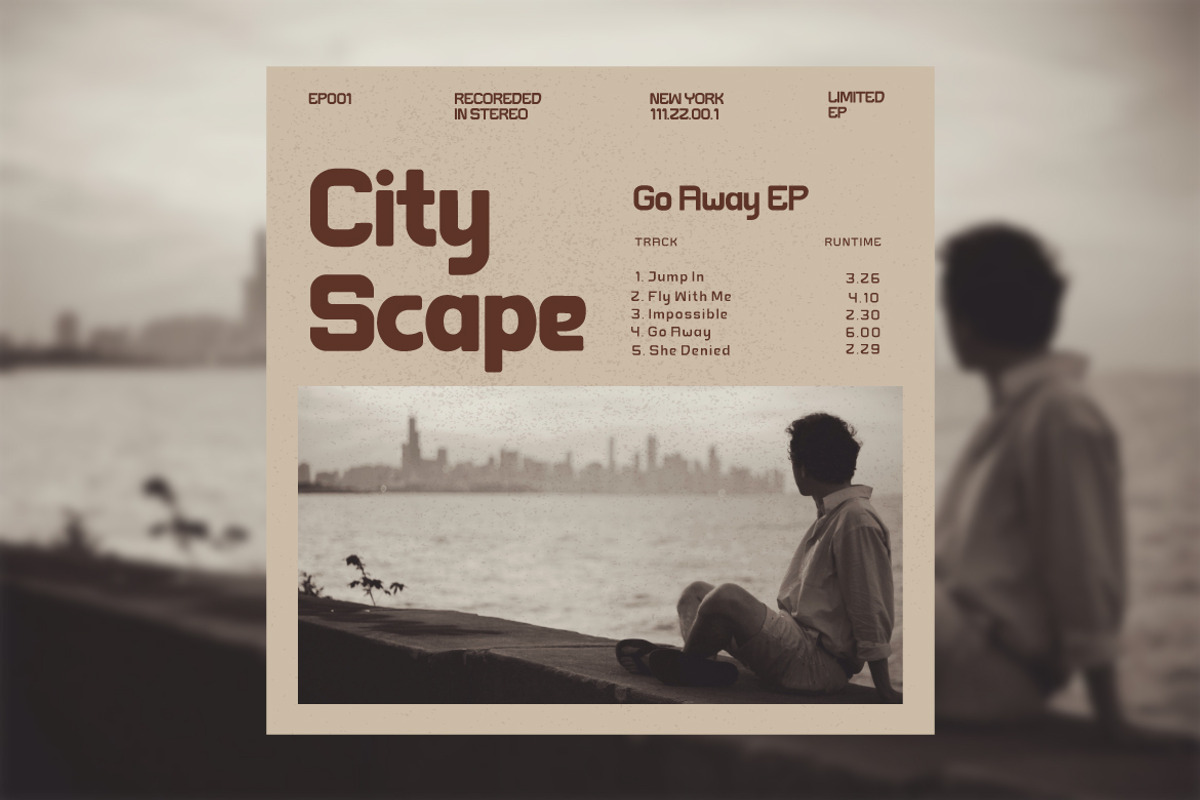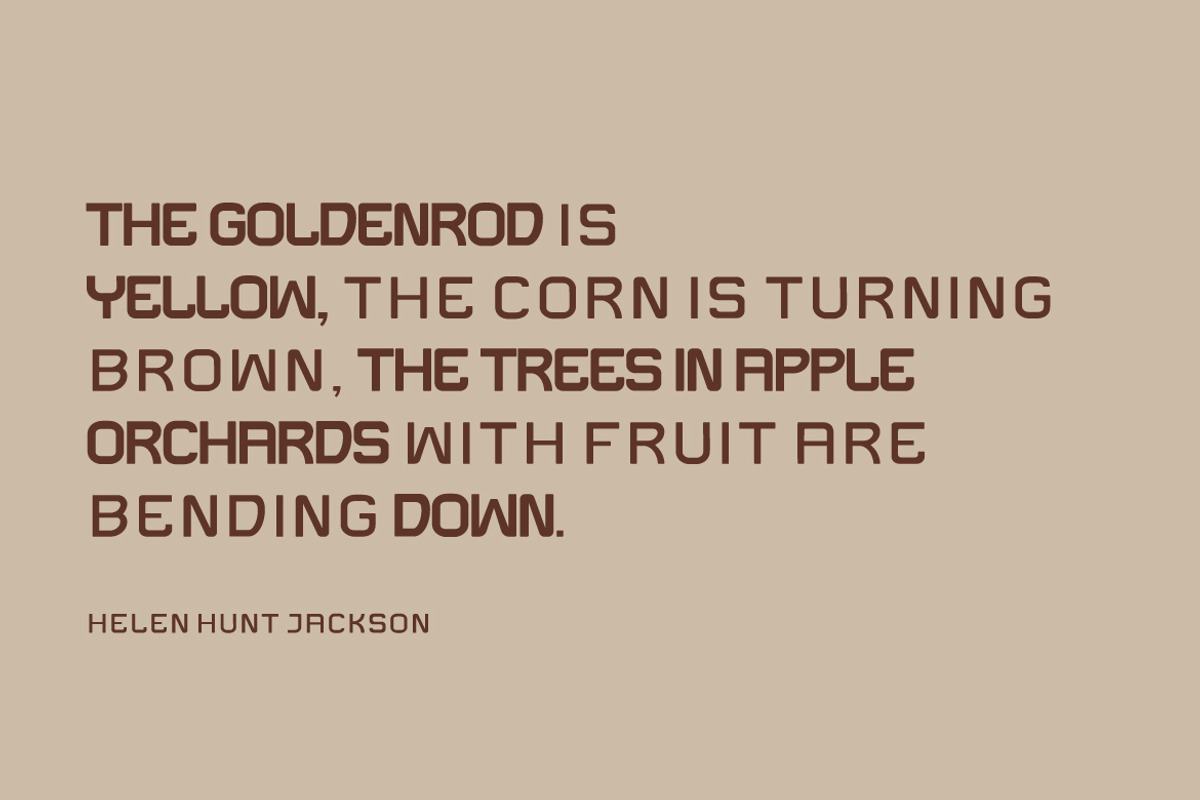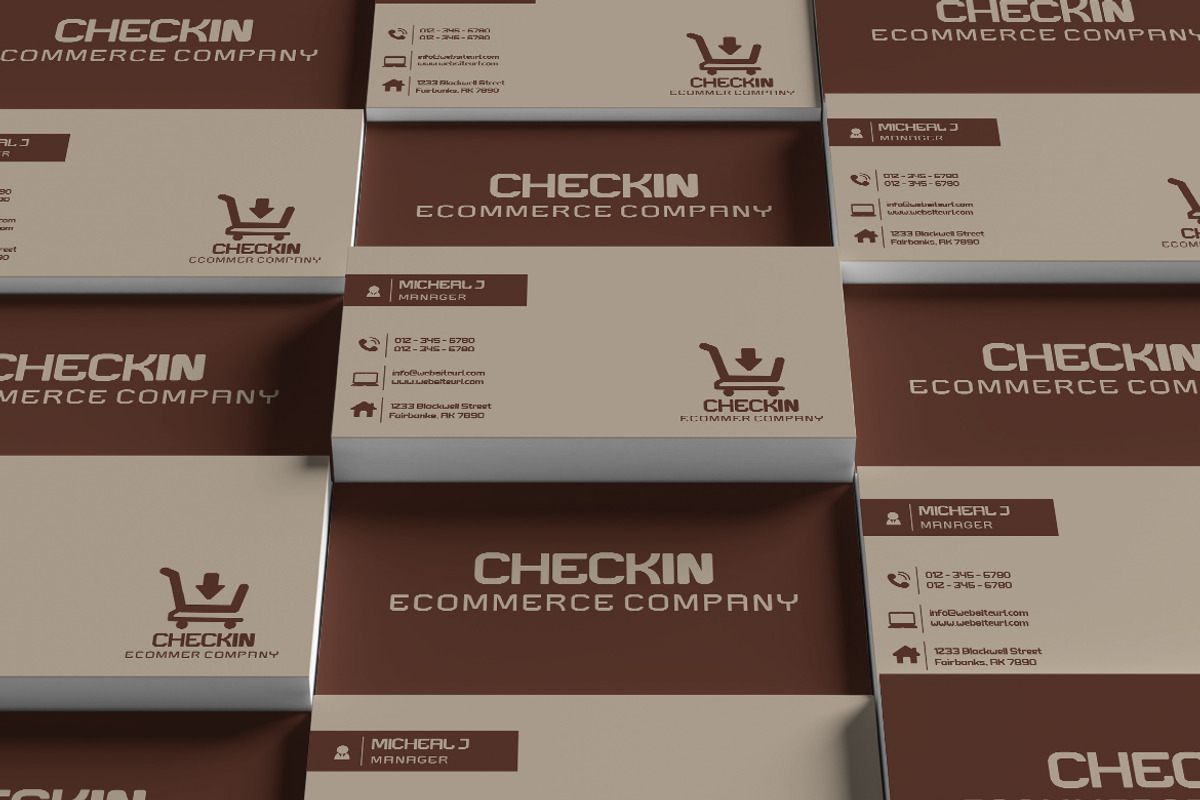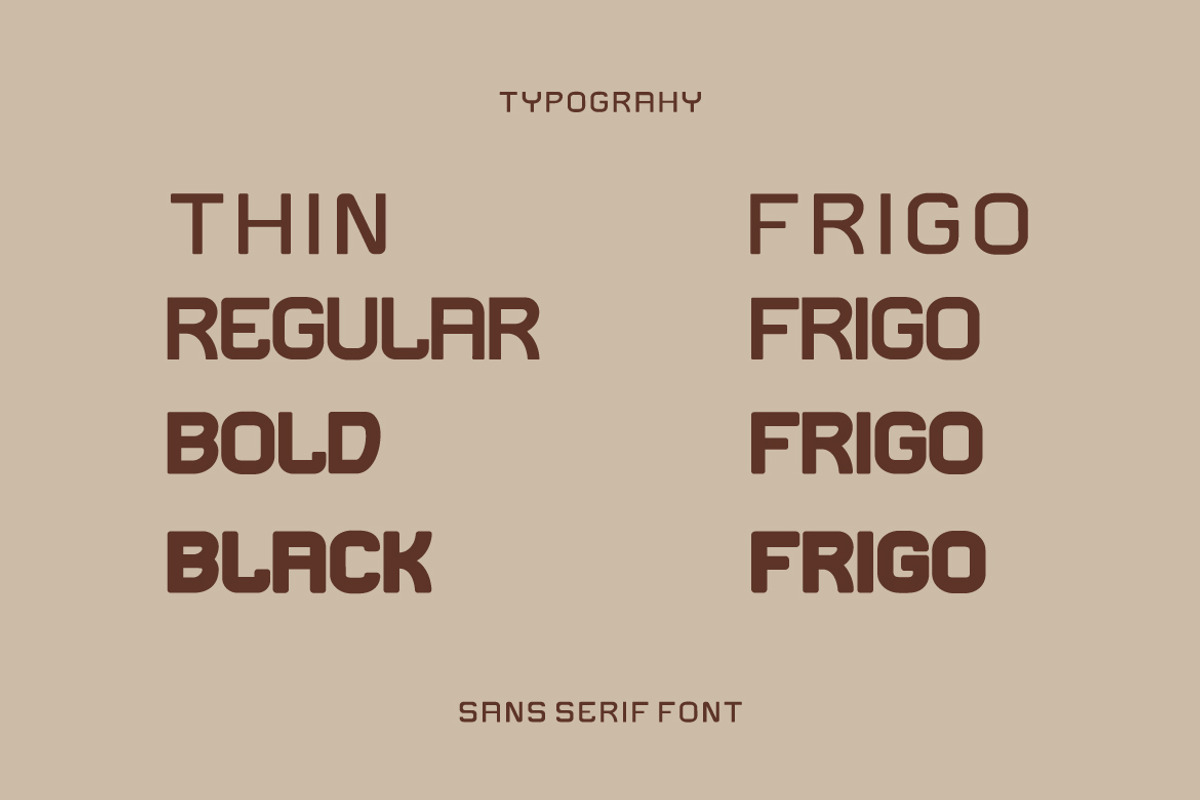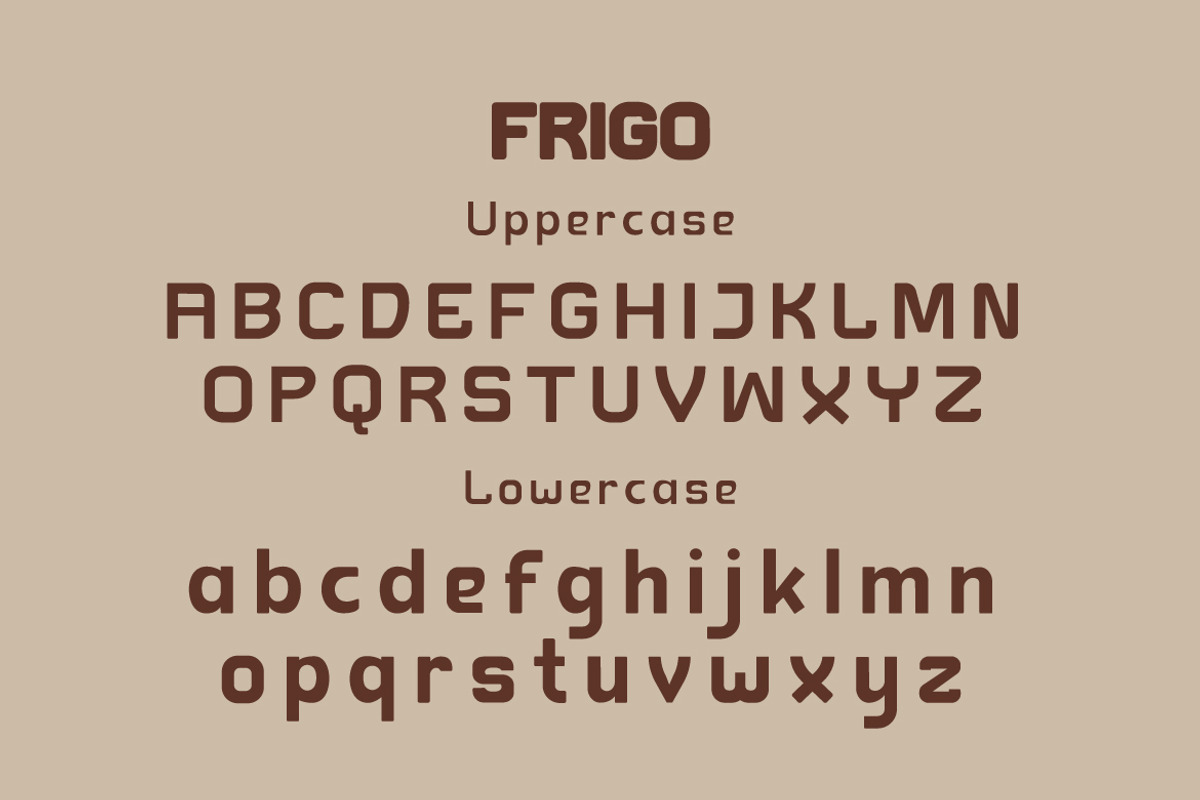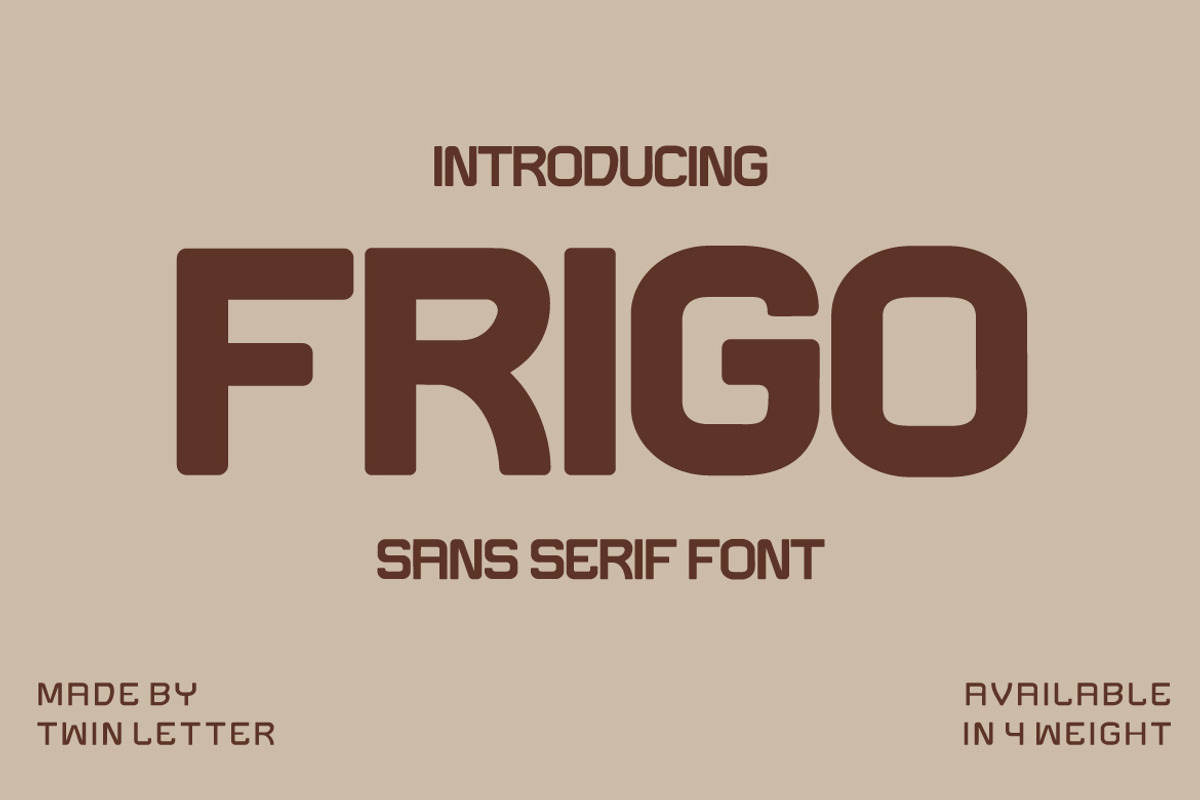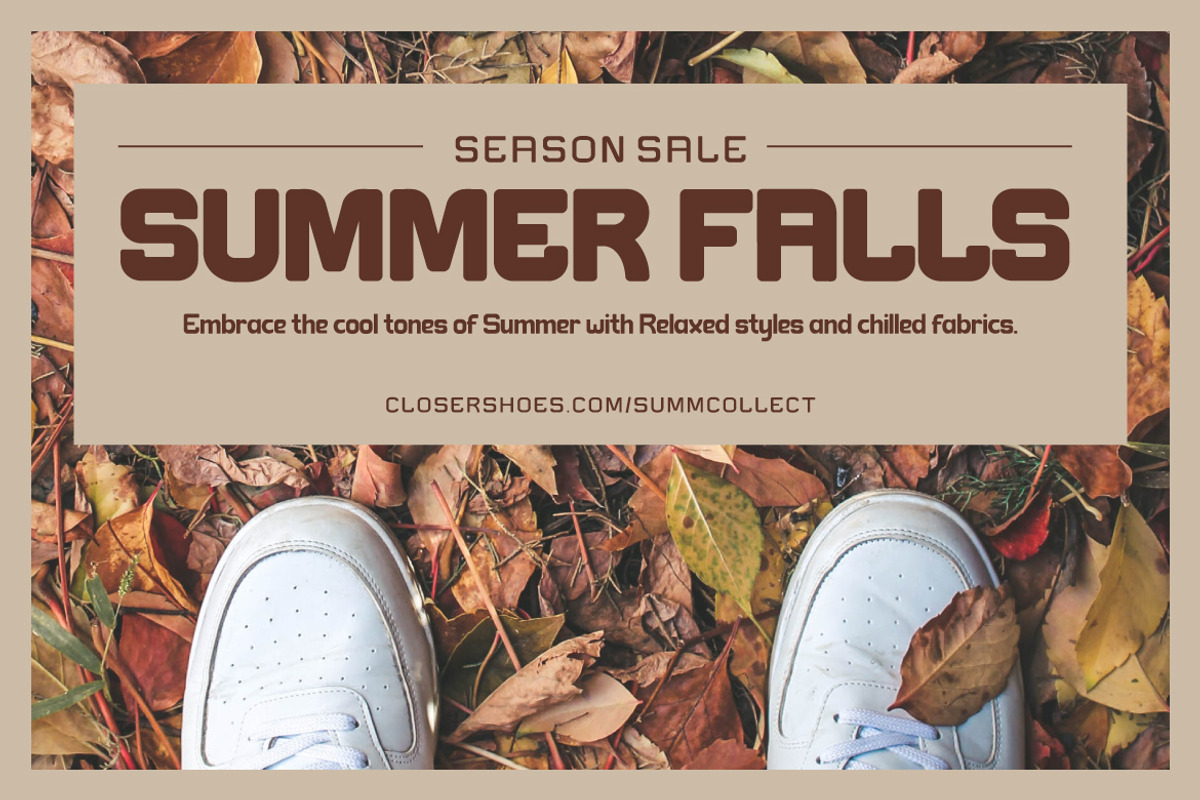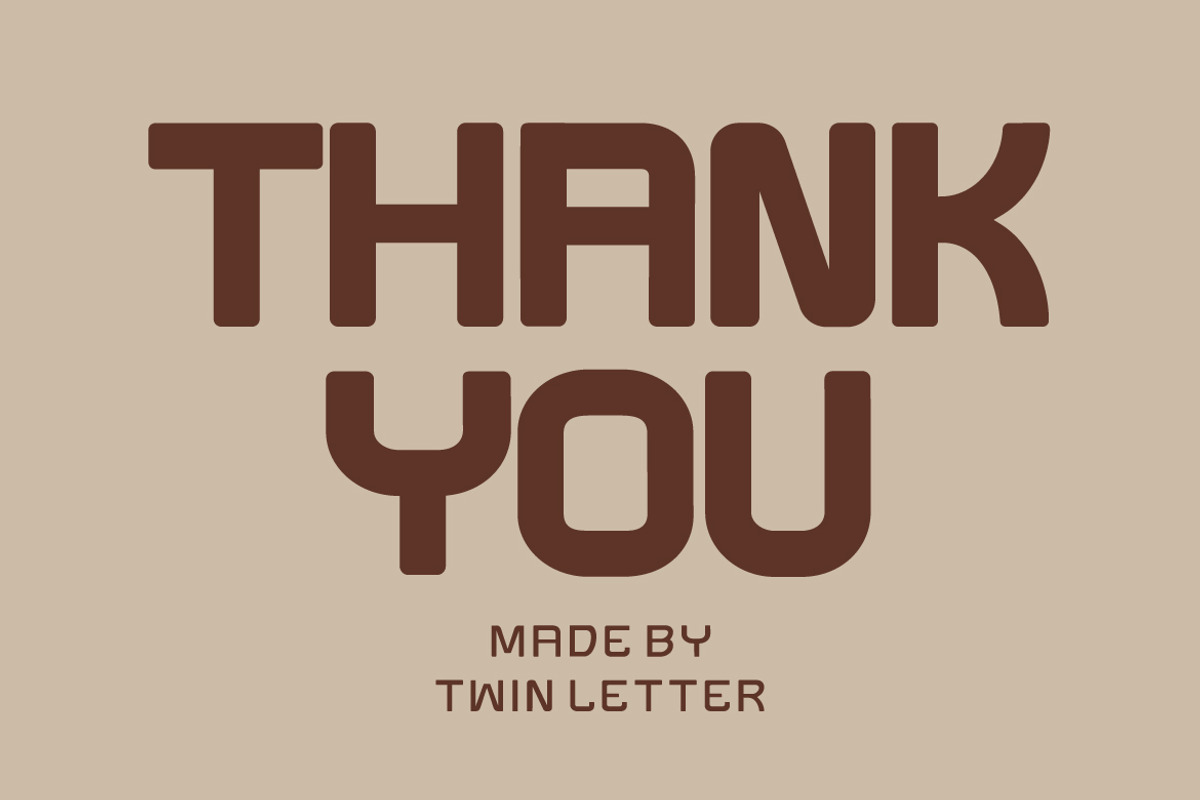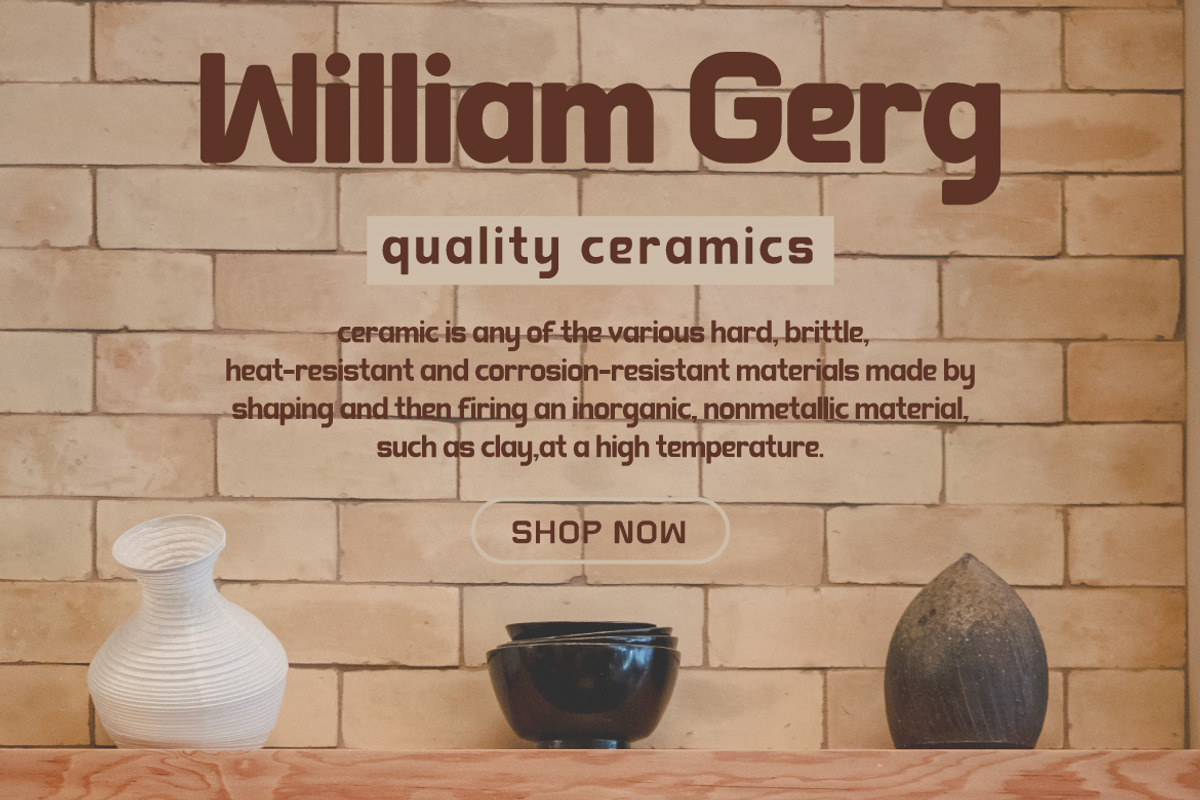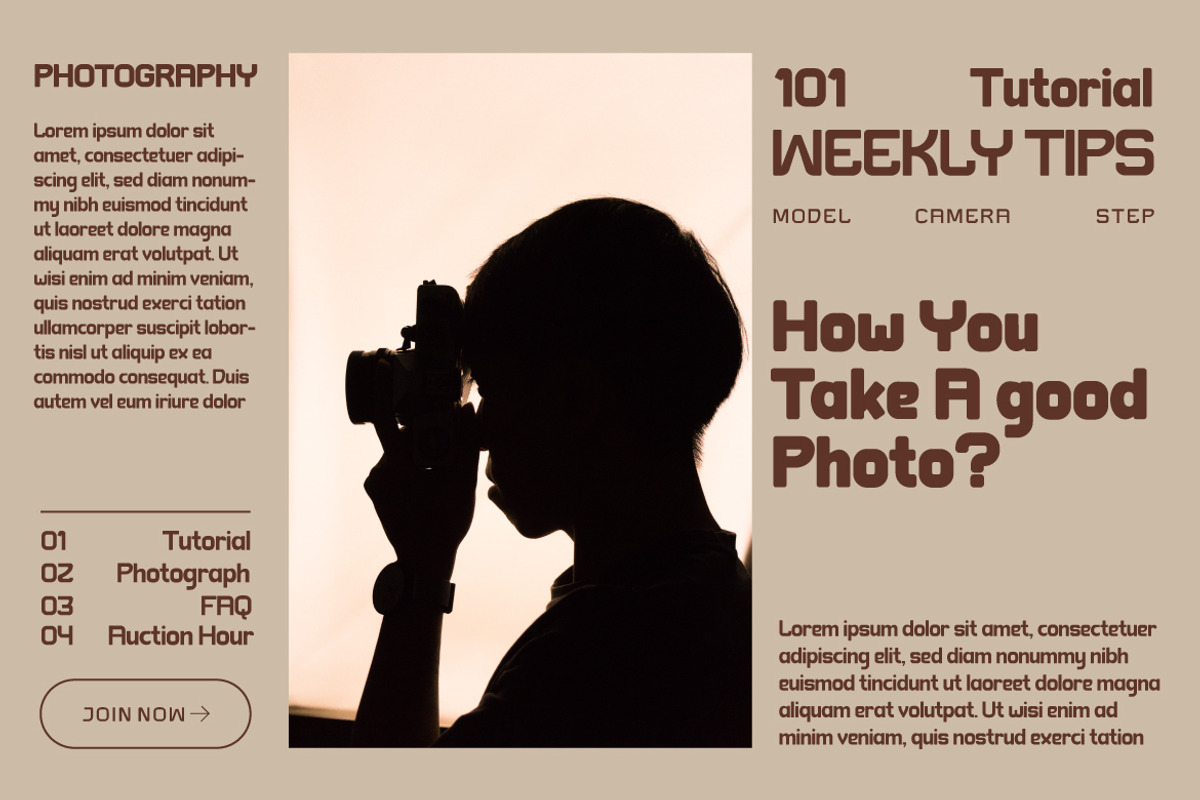
Frigo
FRIGO is a new san serif font that will bring your ideas to life and make them stand out. All of your projects will be more comfortable and appealing if you use this font. This font is also highly adaptable to use because we supply four families to let you choose subtitles, text titles, and other elements. This typeface will meet all of your requirements.
of course, your various design projects will be perfect and extraordinary if you use this font because this font is equipped with a font family, both for titles and subtitles and sentence text, start using our fonts for your extraordinary projects.